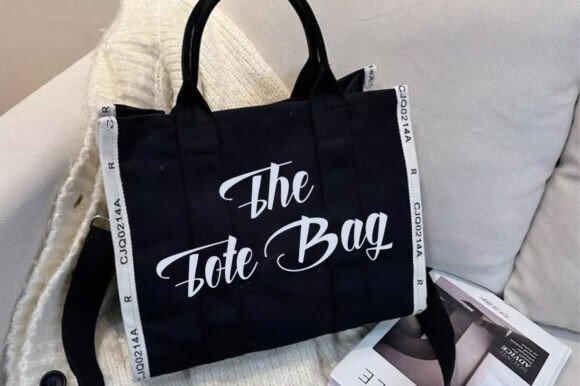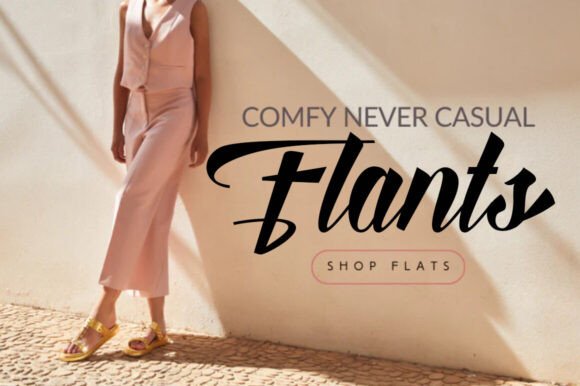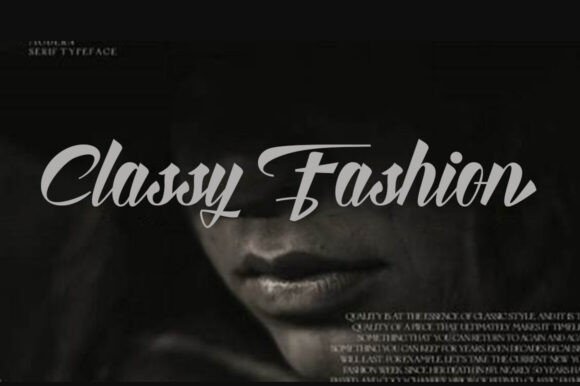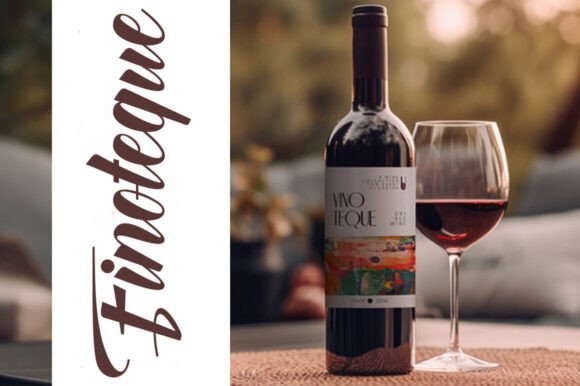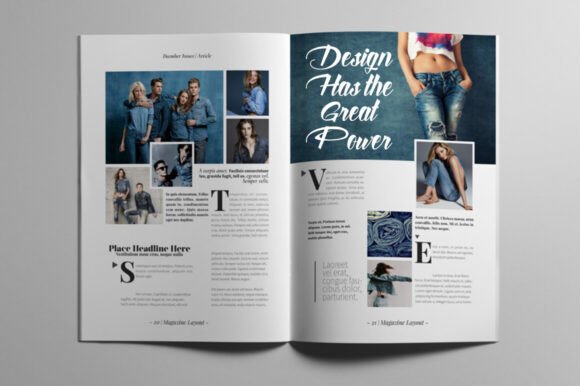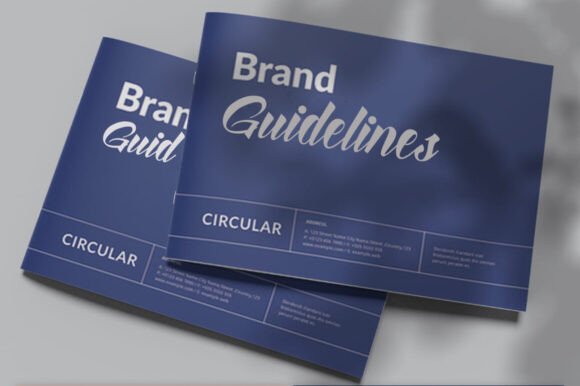
Unleash the Elegance: Discovering the Perfect Font for Your Next Project
Remember that moment when you finally landed the perfect font for your design project? The one that brought all your ideas together and made your creation truly shine? It’s a feeling that’s hard to replicate, but with the right tool, you can experience it again and again. For designers, finding the perfect font can be a game-changer, and that’s exactly what the Agamtoh Font aims to deliver.
As a distinctive and luxurious font, Agamtoh Font is designed to exude a timeless charm that’s both classic and contemporary. Whether you’re crafting a sophisticated logo or an attention-grabbing headline, this font is the perfect tool to ignite your creativity and set your project apart. With its carefully crafted curves and elegant style, the Agamtoh Font is a valuable addition to any designer’s toolkit.
Agamtoh Font Key Features
- Font Family: Agamtoh Font is a unique, custom-designed font with a distinct aesthetic.
- Unique Characteristics: Agamtoh Font features a distinctive, hand-drawn style with intricate details and subtle texture, adding a touch of elegance and sophistication to any design.
Agamtoh Font Review
Initially, I was drawn to the Agamtoh Font’s unique and elegant design. ✨ The subtle curves and intricate details give it a sophisticated look that can elevate any design project. It’s particularly well-suited for luxury brands, high-end publications, and any project where you want to convey a sense of refinement.
- Unique and elegant design
- Subtle curves and intricate details
- Sophisticated look
- Great for luxury brands and high-end publications
However, I did encounter a few limitations with the Agamtoh Font. ⚠️ For one, it can be quite difficult to read in smaller font sizes, which may not be ideal for projects where text is dense or where readability is a top priority. Additionally, the font may not be suitable for digital use, as it can appear pixelated or distorted on certain screens.
- Difficult to read in smaller font sizes
- May not be suitable for digital use
- Potential for pixelation or distortion
Overall, I would recommend the Agamtoh Font for projects where a touch of elegance and sophistication is required. However, it’s essential to carefully consider the font’s limitations and potential uses before incorporating it into your design.
Agamtoh Font is ideal for creating visually striking headlines, titles, and headings. Use it to add a touch of elegance and sophistication to your designs. Some common use cases include:
– Creating a logo or branding identity
– Designing a website or mobile app
– Creating a brochure or flyer
– Adding a personal touch to a presentation or report.